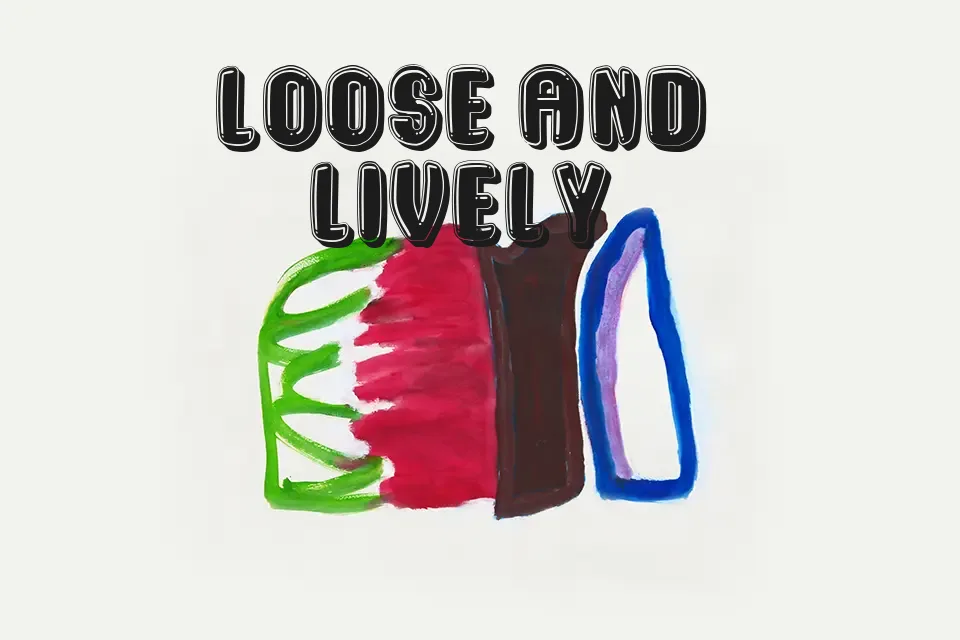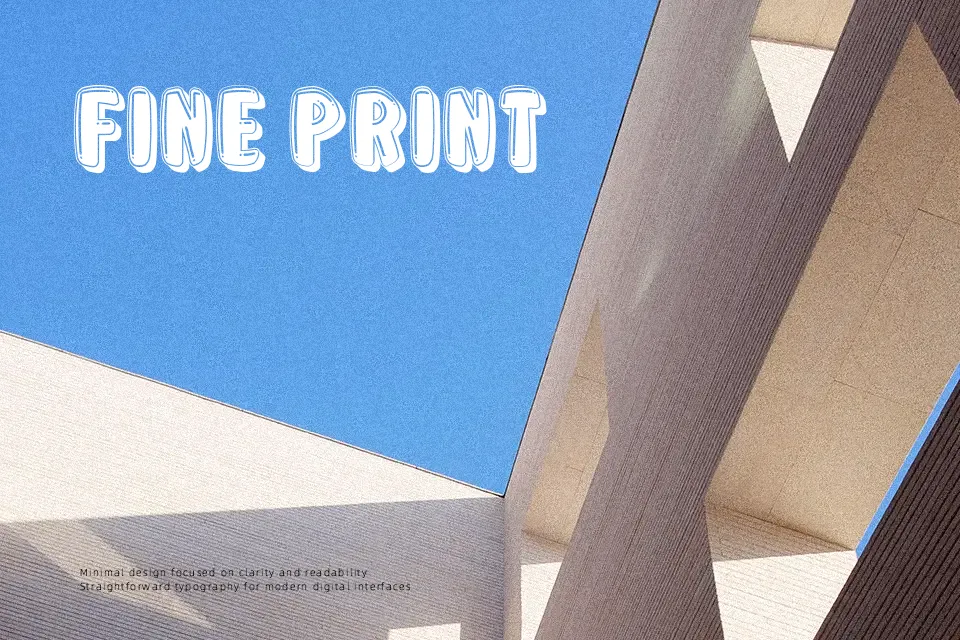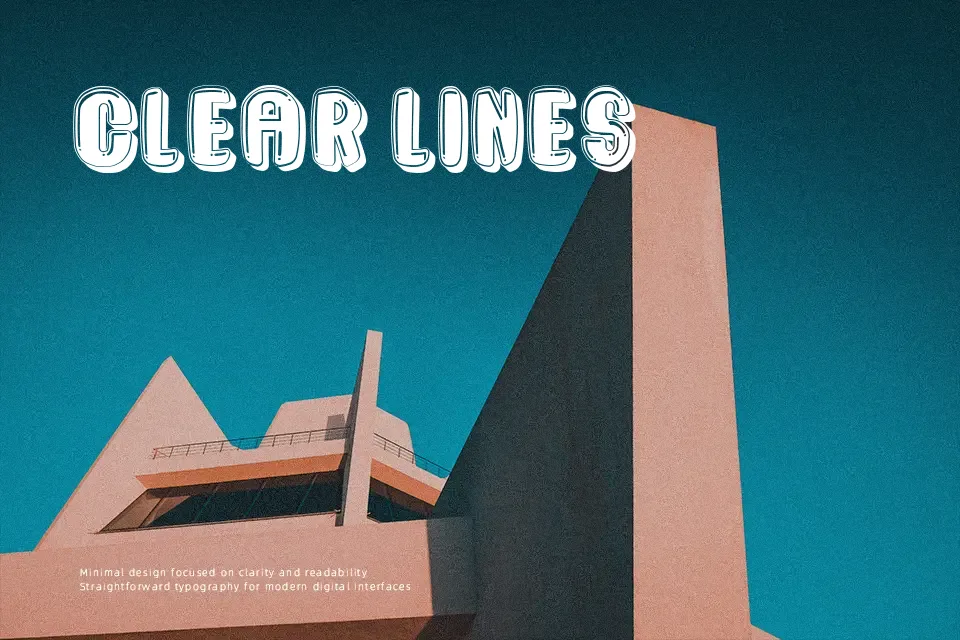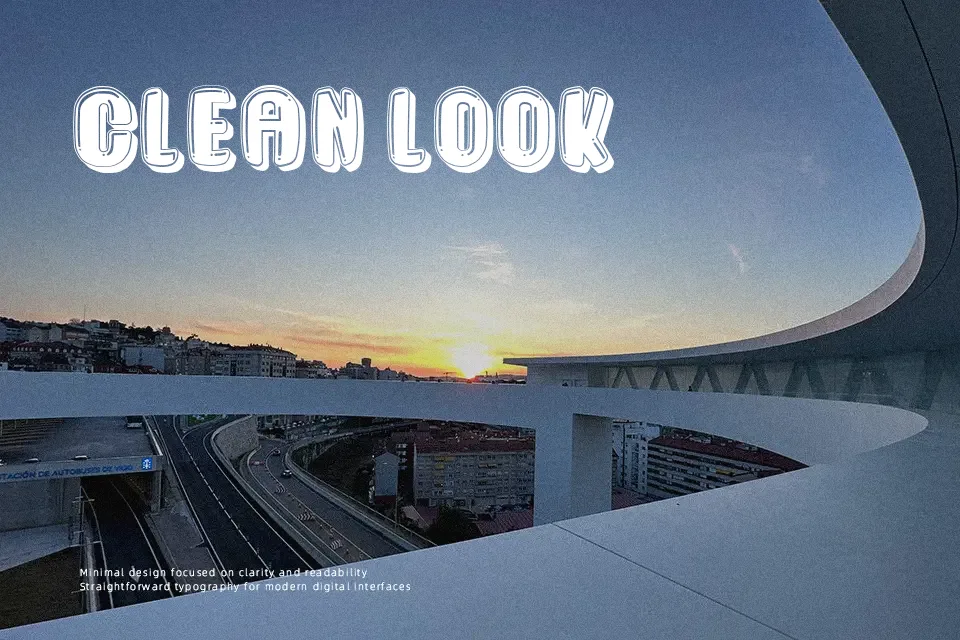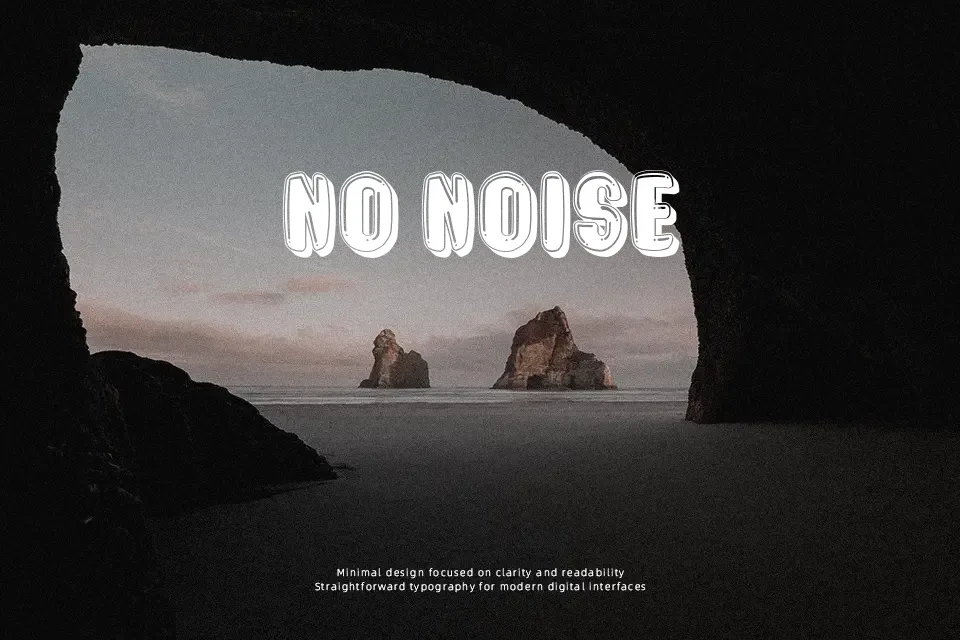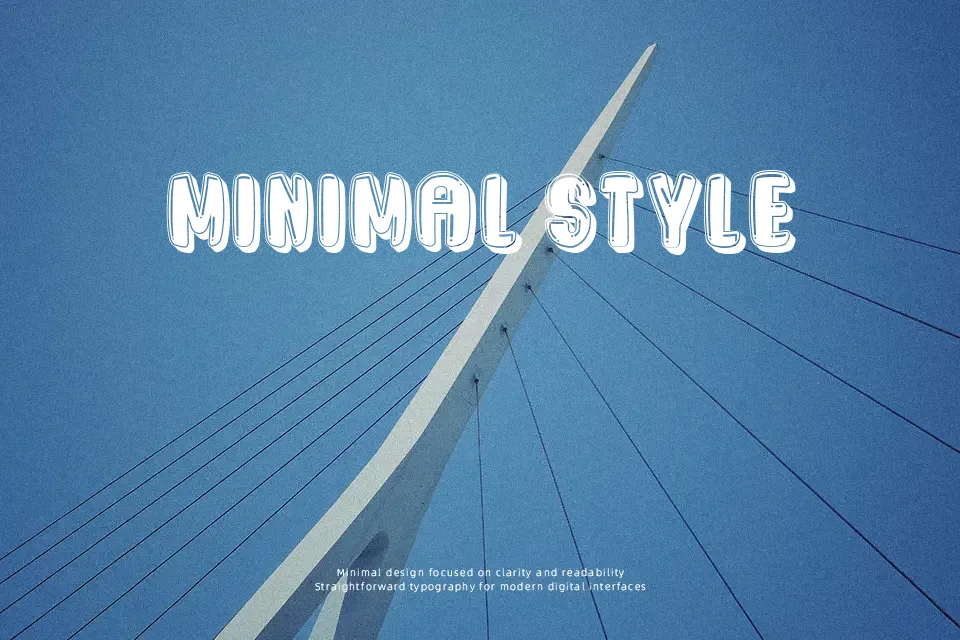
Rabbit Font
This typeface performs best when displayed at larger sizes, as Rabbit Font utilizes thick, rounded strokes to create a bold retro aesthetic. The letterforms carry a heavy visual weight with tight spacing, which helps maintain clarity in larger headlines and vibrant posters. Its consistent, bubbly proportions give the design a friendly and energetic rhythm, highly suitable for custom apparel graphics and prominent product packaging. However, the dense forms reduce comfort during extended reading, making it less suitable for long paragraph text. The playful structure simply becomes less effective in dense editorial layouts.
Perfect for branding, headline, and packaging, with a bubble and decorative style.